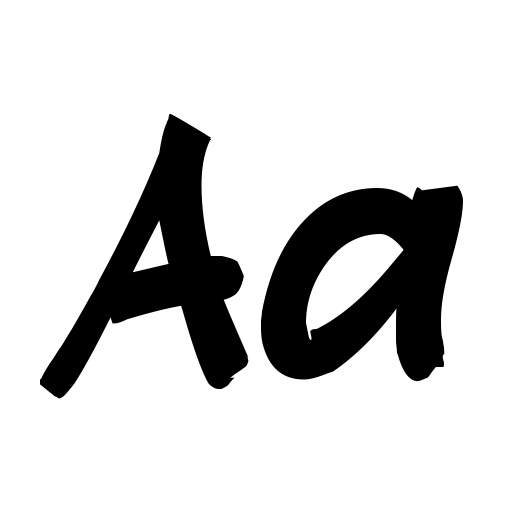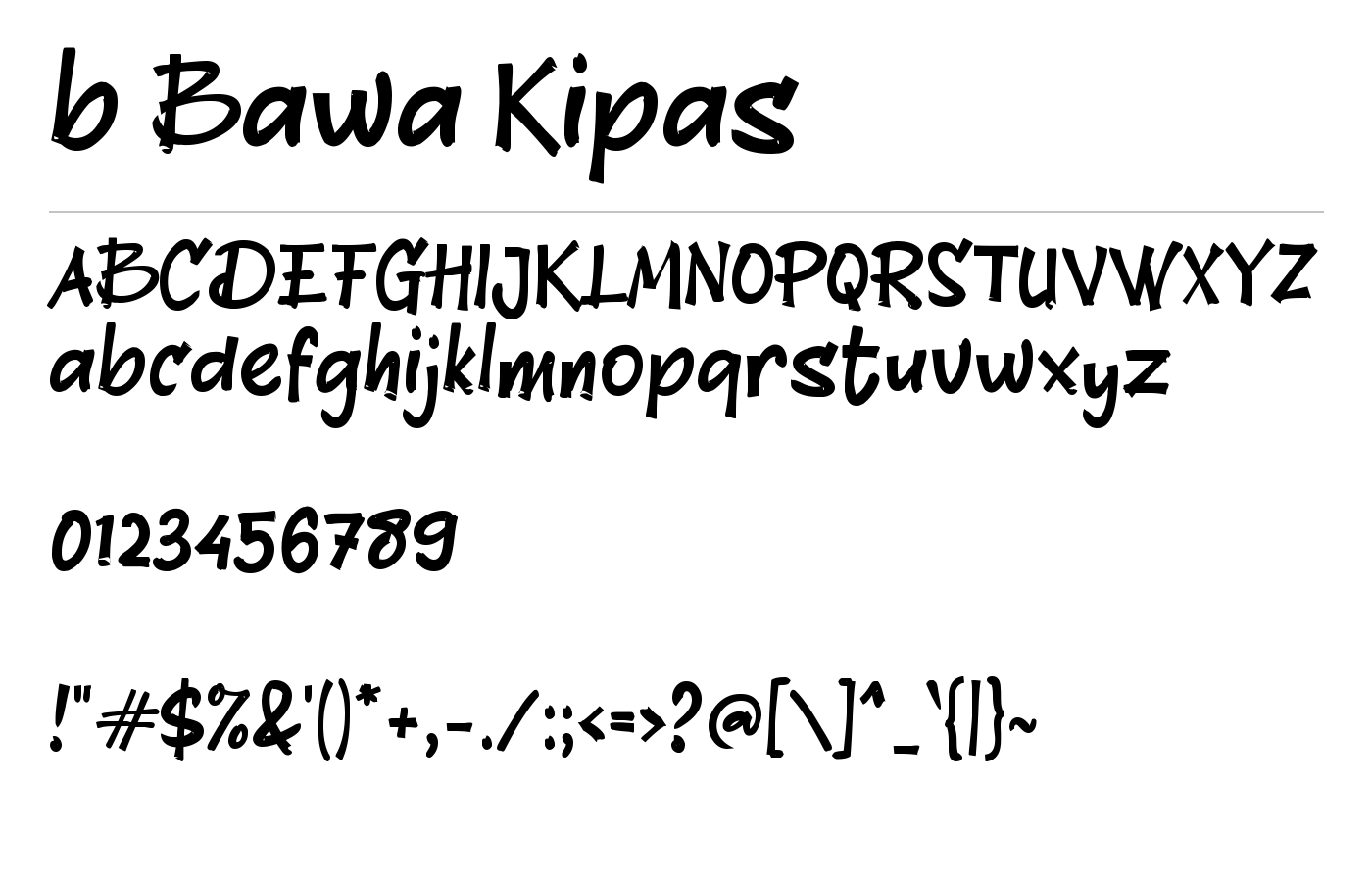
Bawa Kipas is a playful, hand-drawn sans serif font with uneven strokes and a casual, brush-like feel. Its lively letterforms and slightly irregular shapes give it an approachable and friendly personality, perfect for creative projects, children's designs, or informal branding. This font works well in headlines, logos, and packaging that aim to convey warmth and spontaneity.
b Bawa Kipas Font
About b Bawa Kipas Font